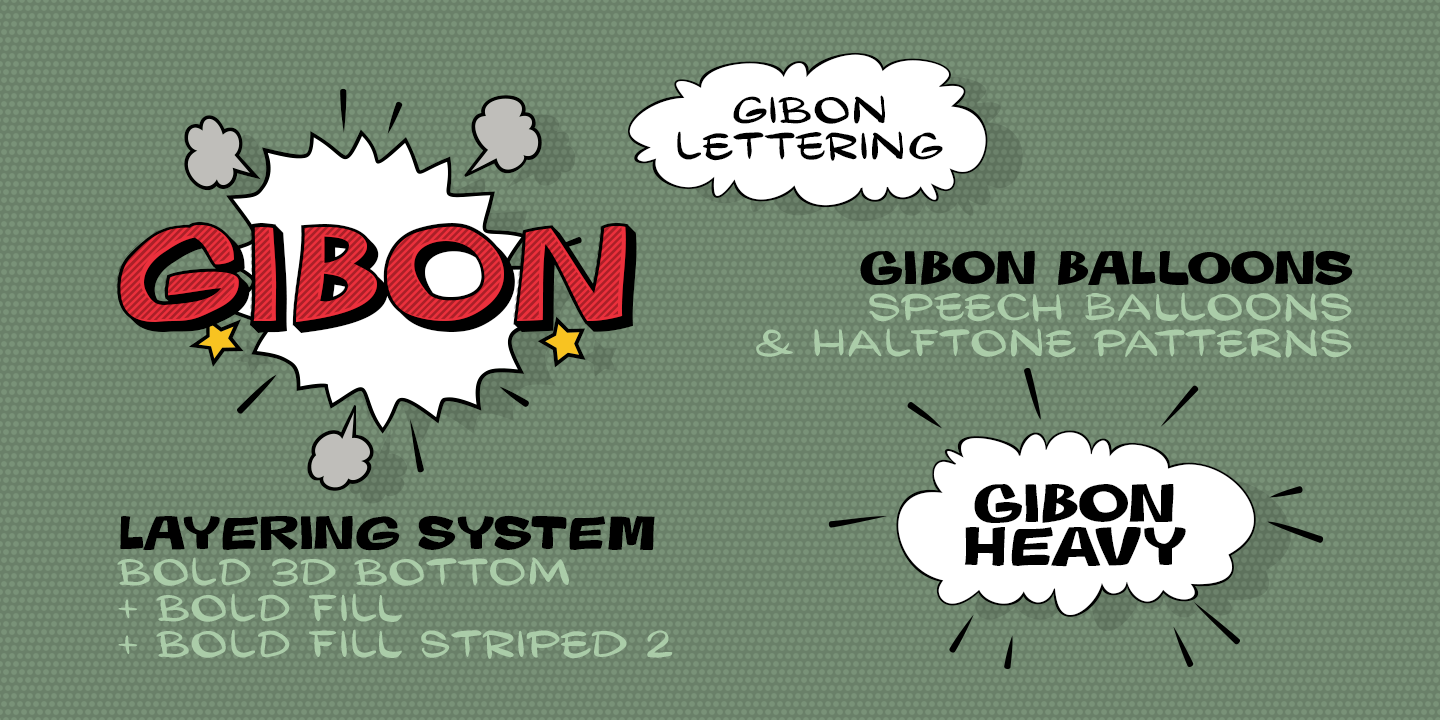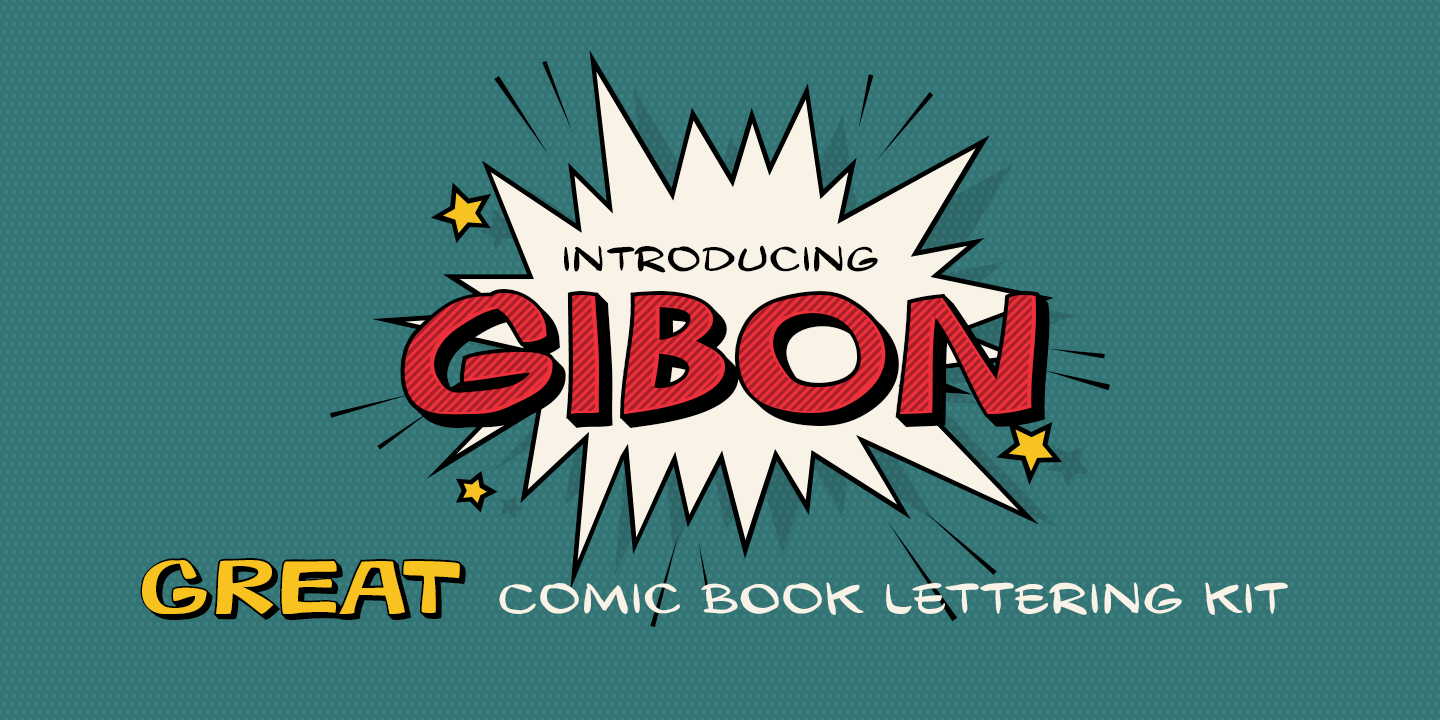
Every cartoonist and hand letterer needs a pencil, a T-square and on and on. For digital lettering Gibon is an option. This handy toolkit helps you easily letter your comic strips, but even if you have nothing to do with cartooning, this bundle can simply add some comic book feel to your design or make some noise with layered sound effects.
The basic font for speech balloon inking is Gibon Lettering, while Gibon Bold and Heavy let you emphasize certain text. Gibon Bold is further developed as a multilayer type where different styles are designed to be overlaid on top of each other, letting you work with built-in shadows, 3D effects and outlines to create striking SFX.
Gibon Balloons offers different types of layered speech balloons and a few halftone patterns.
The OpenType contextual alternate feature is set to automatically apply the random effect using two sets of glyphs. Comics are lettered in all caps and so is Gibon. To easily access alternate characters they are encoded as lowercase letters.
Type the uppercase “I” to access the crossbar “I” and the lowercase “i” to access the crossbar-less “I”. Turn on stylistic set number one to use only crossbar-less “I”.